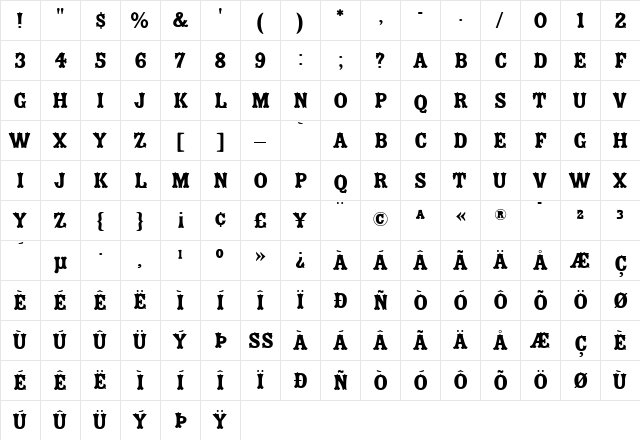
ZebrawoodFill Roman Font Preview
ZebrawoodFill Roman
Design Context for ZebrawoodFill Typeface
ZebrawoodFill taps into classic Western woodtype traditions — bold, characterful, and impossible to ignore.
A natural fit for craft spirits, ranch branding, rodeo events, and Americana-inspired design work.
Font Pairing: Combine ZebrawoodFill with a simple slab or neutral sans — period-accurate companions reinforce the vintage feel without competing for attention.
Pro Tip: Use ZebrawoodFill for short, impactful bursts of text — it shines in poster headlines and product names rather than extended copy.